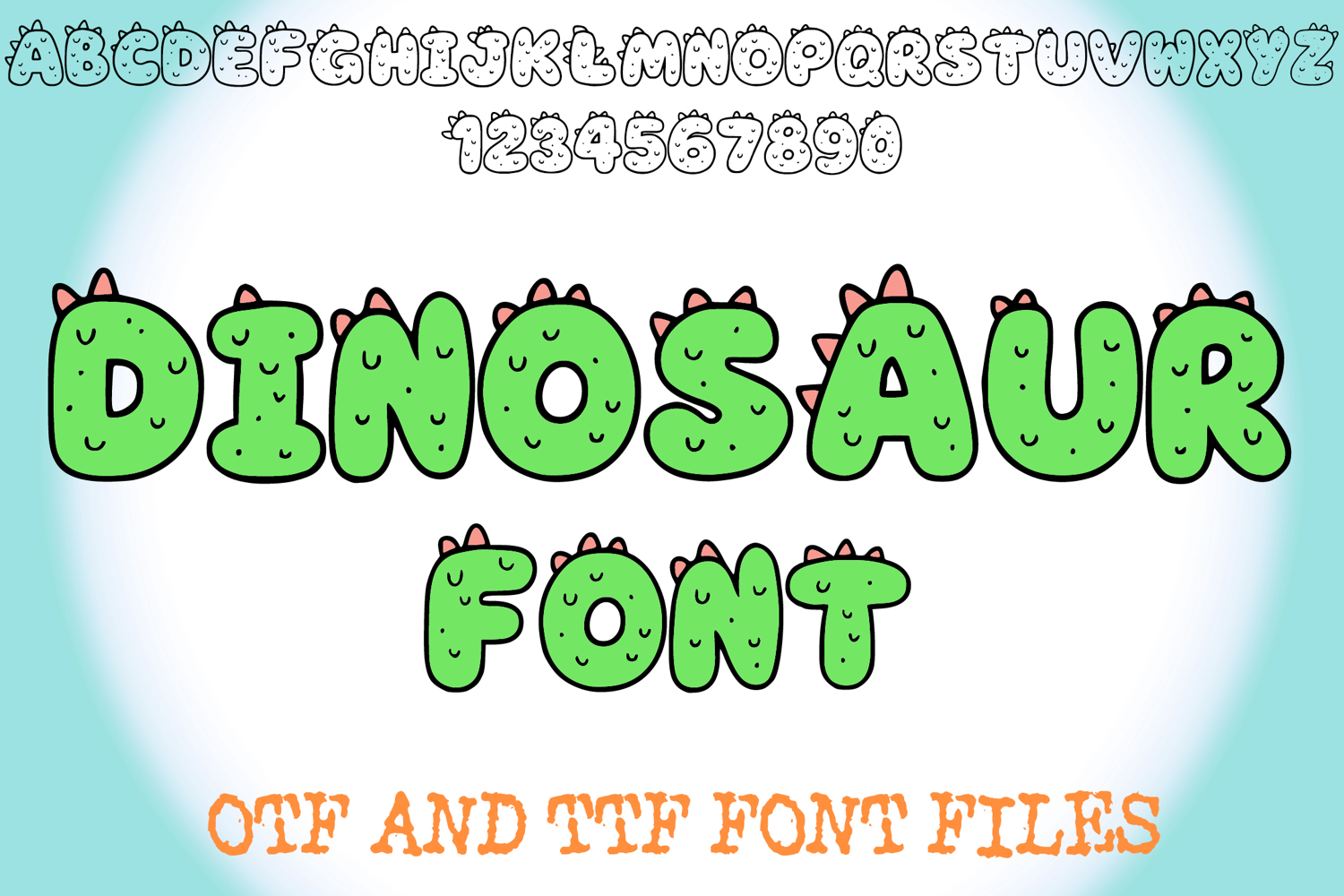
Dinosaur Lettering ABC Text Font Alphabet Reptile OTF Type Illustration
A fun cartoon style font where you can create your own words and colour them to your vision!